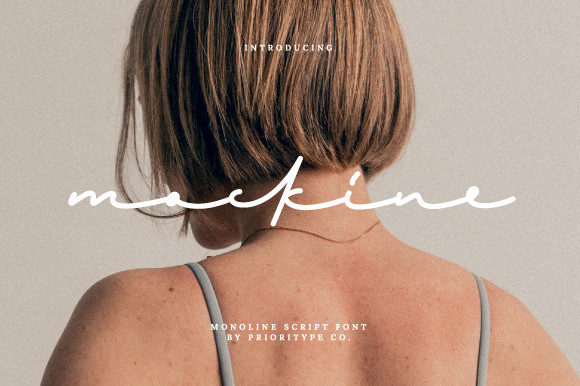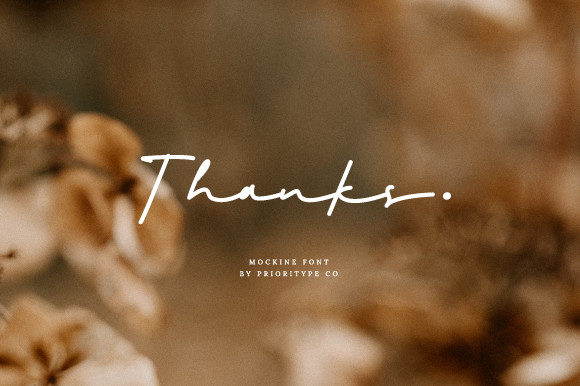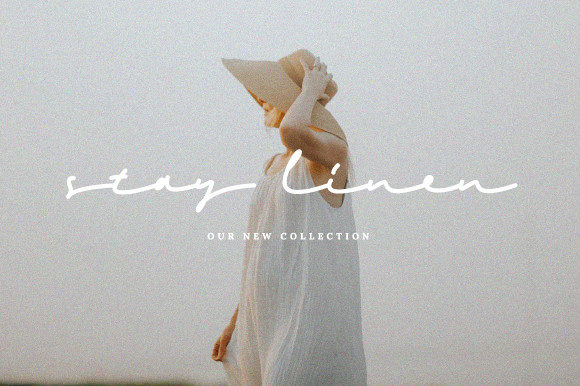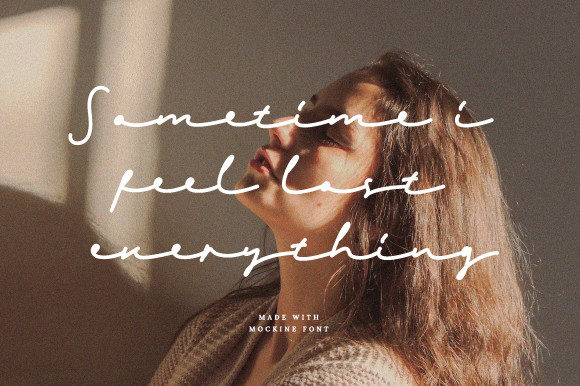
About Mockine Font
Introducing “Mockine,” a Monoline Script font characterized by natural hand strokes that lend a unique and stylish touch to your projects. This font boasts a natural and handwritten feel, making it perfect for a variety of creative endeavors that demand an extraordinary and personalized touch.
The versatility of “Mockine” is evident in its ability to enhance various design elements. Picture it gracing wedding invitations, where its stylish and organic strokes add an elegant and personal feel. Visualize it on thank you cards, quotes, and greeting cards, where its natural handwriting conveys sincerity and warmth.
Whether you’re working on logos, business cards, or any design requiring a customized touch, “Mockine” is designed to meet those needs. Its monoline script adds a modern yet timeless aesthetic to your projects, making it suitable for a wide range of applications.
Add “Mockine” to your font arsenal for a go-to choice that effortlessly brings a natural and stylish vibe to your creative work. Elevate your designs with the personalized touch of this monoline script, and watch as it enhances the visual appeal of your wedding invitations, branding materials, and more.